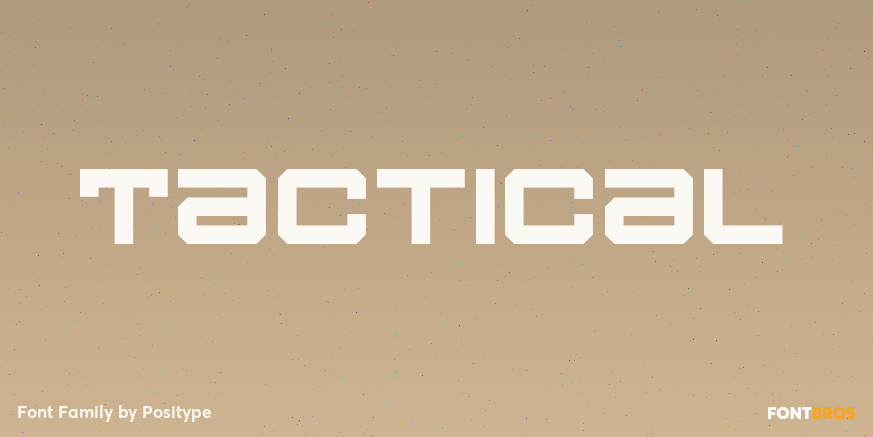
Tactical
About Tactical
Tactical is nothing more than a testosterone-laced typeface. Rigid, mechanical and unforgiving. Originally conceived in 2007 while I was working through the early sketches of Ginza, Tactical features hard 45-degree angles and the presence of a curve…